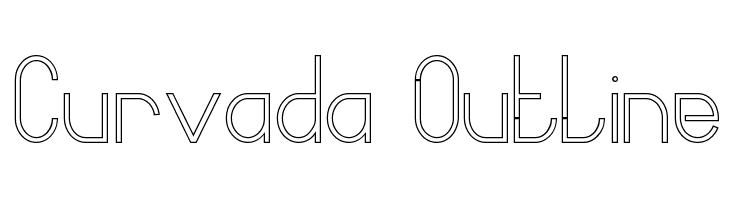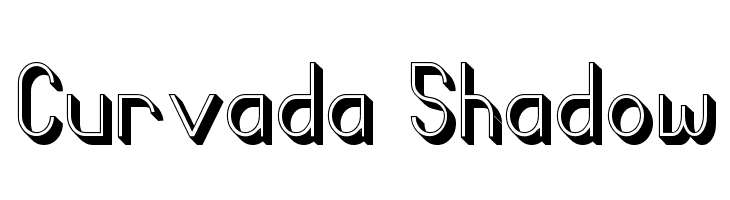
( CONORGREEN - cnrgrn.tumblr.com )
A modern, geometric outline font with a clean and airy aesthetic.
( CONORGREEN - cnrgrn.tumblr.com )
A modern, italicized outline font with elegant and dynamic characters.
( CONORGREEN - cnrgrn.tumblr.com )
A bold, shadowed font with a modern, geometric style.
( CONORGREEN - cnrgrn.tumblr.com )
A bold, italicized font with a shadow effect for a 3D look.